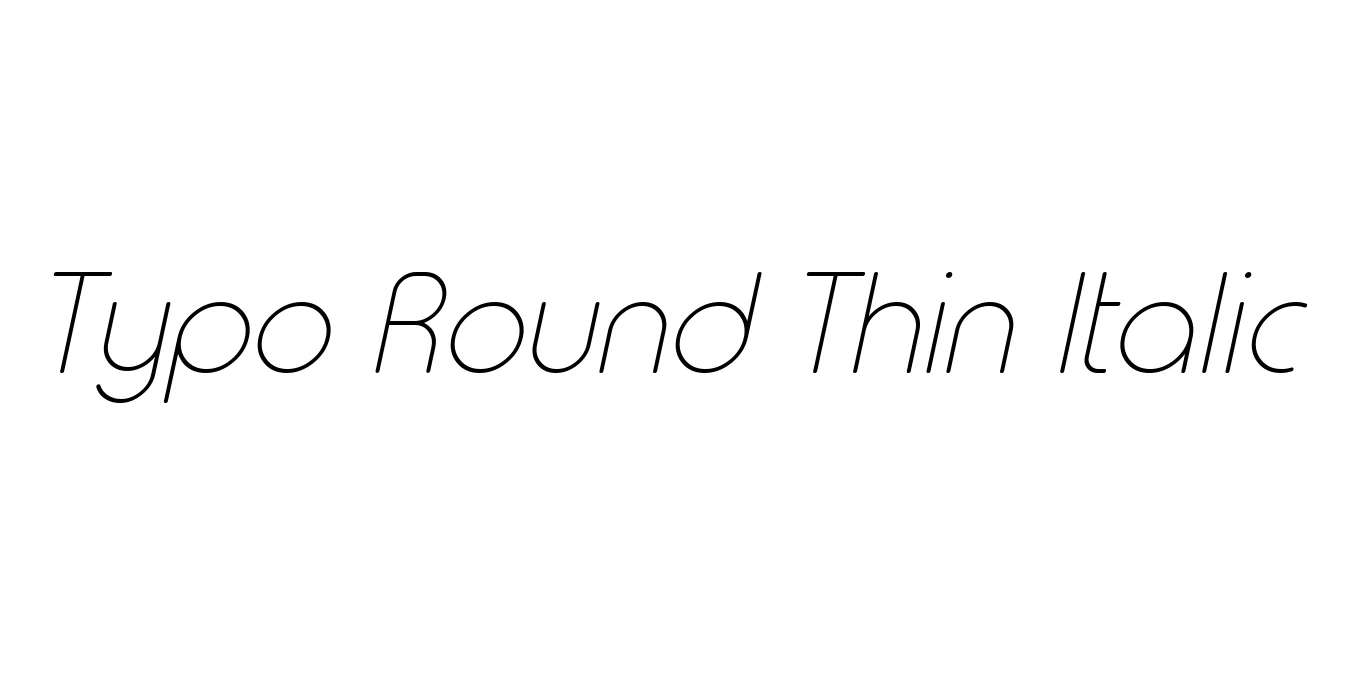
Typo Round Thin Italic
Designed by Studio Typo
Typo Round Thin Italic is a geometric sans-serif typeface characterized by its soft, rounded terminals and clean, open counters. Designed by Studio Typo, this font family was created to bridge the gap between technical geometric precision and a friendly, organic aesthetic. The Thin Italic weight, in particular, offers a highly delicate and airy visual profile, providing a sophisticated sense of movement and elegance that is often missing from standard rounded typefaces.
This typeface is highly effective for minimalist design applications where clarity and subtle style are required. Because of its Thin Italic nature, it maintains high legibility in larger display sizes while offering a distinct, modern personality. It is frequently utilized in contemporary branding and digital interfaces to evoke a sense of approachability and innovation without being overly bold or intrusive.
Typo Round Thin Italic Best Uses
Excellent for minimalist posters and thin, elegant headline treatments.
Perfect for hero text and subtle navigational elements in modern UI/UX.
Ideal for luxury or tech-oriented logos that require a soft, friendly touch.
Suited for pull quotes and stylistic subheaders in digital publications.